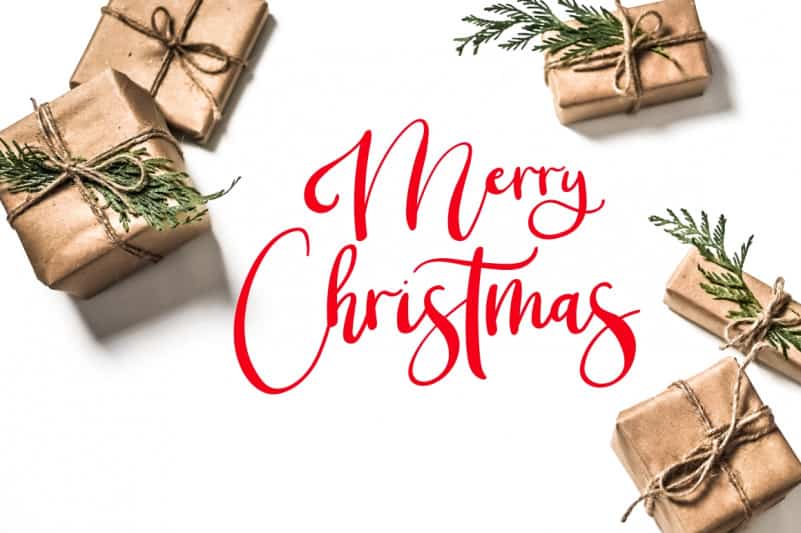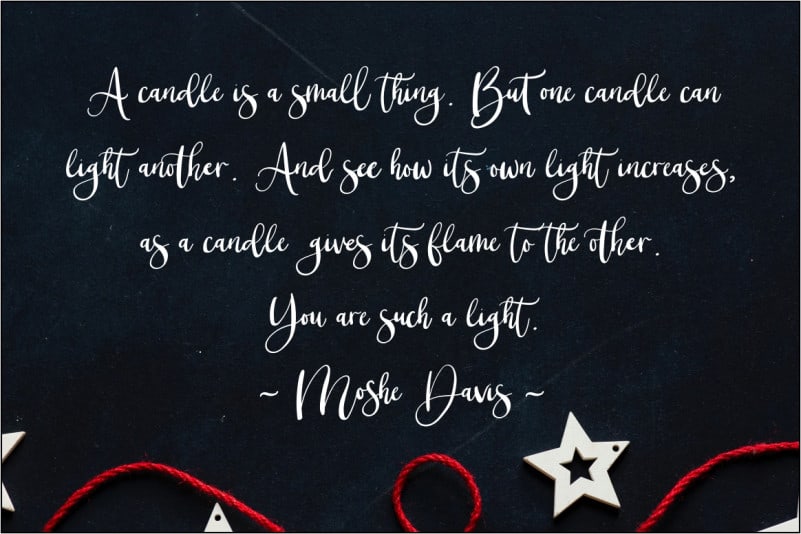
Christmas Blossom Font
Introducing – Christmas Blossom Font a beautiful, feminine and modern script font with beginning and ending swashes. It’s the perfect choice for stylish branding & logo projects, product packaging, handwritten quotes, editorial design invites, greetings and so much more!